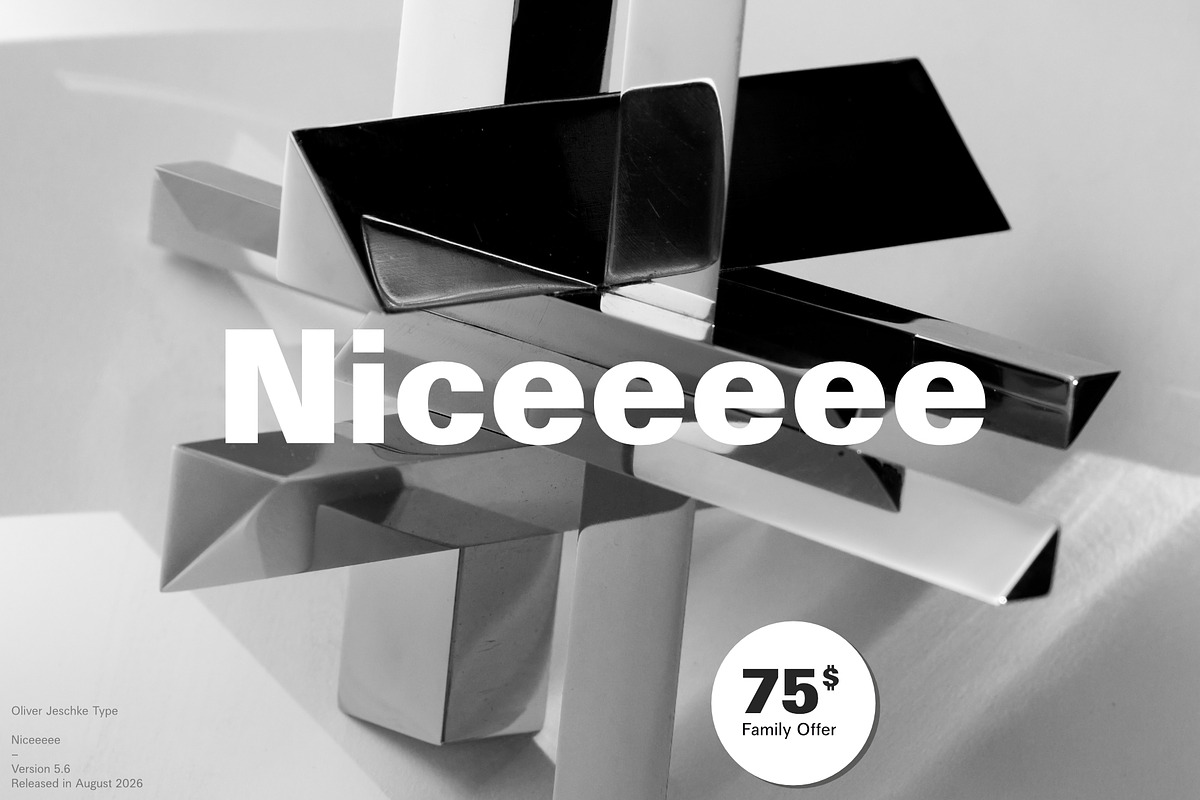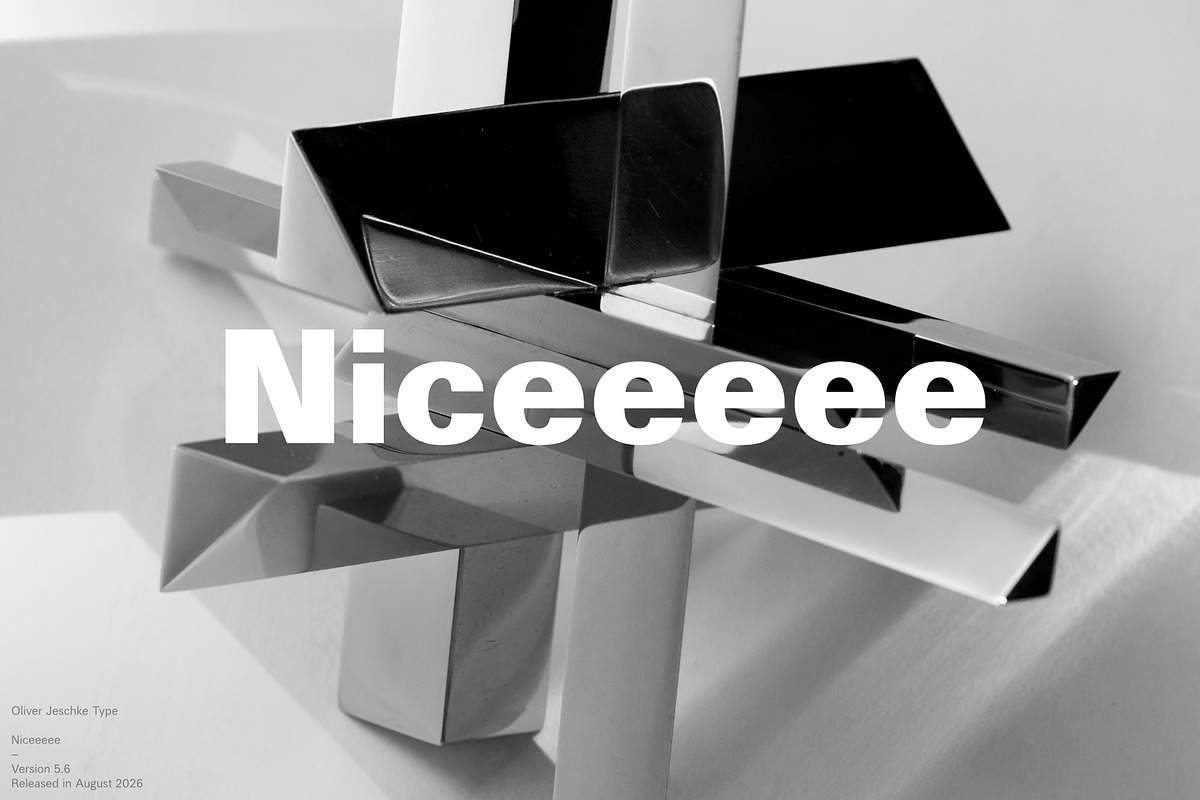
Niceeeee
Defined by sharp contrasts and fluid, expressive curves, Niceeeee brings a refined and confident presence to high-end design. Developed as a collaborational project, this typeface combines precise geometry with distinctive details—most notably a signature double-story lowercase ‘g’. An uncompromising tool for sophisticated branding and editorial projects where distinction is paramount.
Oliver Jeschke Type Released in 2026
Designed with Creative Direction from Bern, Switzerland.